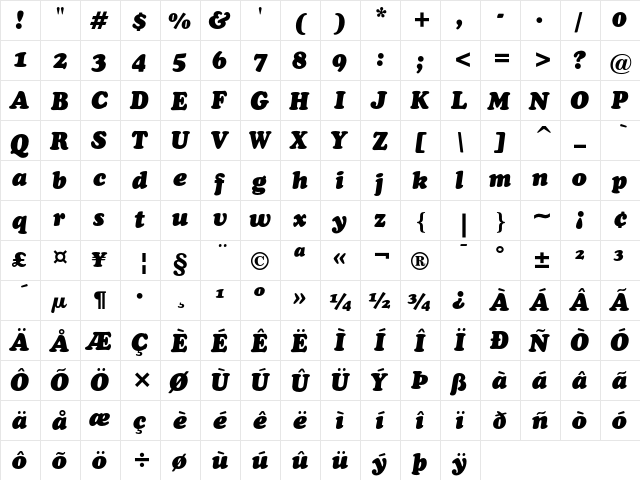
Bitstream Cooper Black Italic Headline Font Preview
Bitstream Cooper Black Italic Headline
Design Context for Bitstream Cooper Typeface
Bitstream Cooper is a composed and adaptable typeface that performs quietly and consistently across a wide range of design contexts. The dynamic lean of this cut emphasises speed and emphasis in any layout.